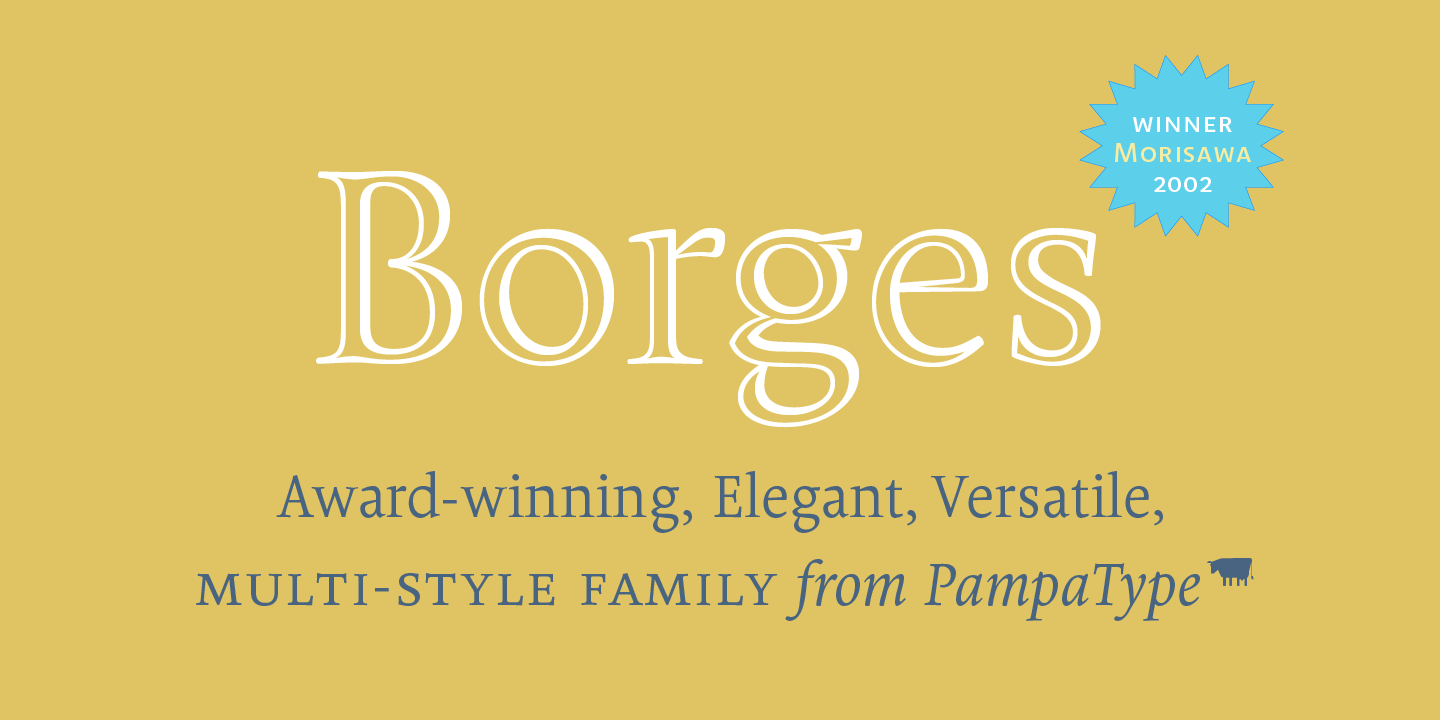
Borges
Borges is a serif and display serif font family. This typeface has eleven styles and was published by PampaType.
Borges is a versatile type family designed by Alejandro Lo Celso, inspired by the literature of Argentinian poet Jorge Luis Borges.
It is a very legible & classic type designed with a contemporary feeling.
Its delicate sense of rhythm delivers a comfortable legibility at reading.
It was conceived for editorial use, though it is suitable for a variety of designs.
Borges is composed of four full weights for text: romans (including small caps) and italics, plus two titling fonts and an elegant chancery named Poema.
Borges Titulo Hueca gained the Matthew Carter prize at the Morisawa awards, Tokyo 2002.